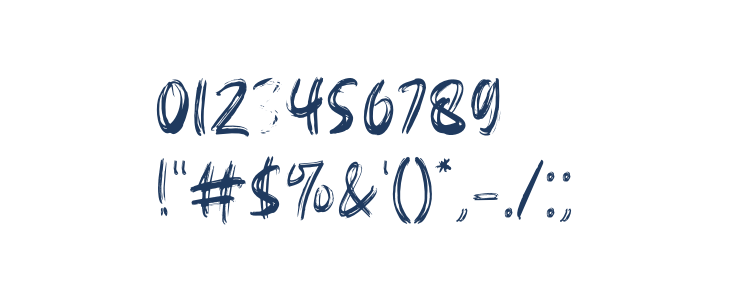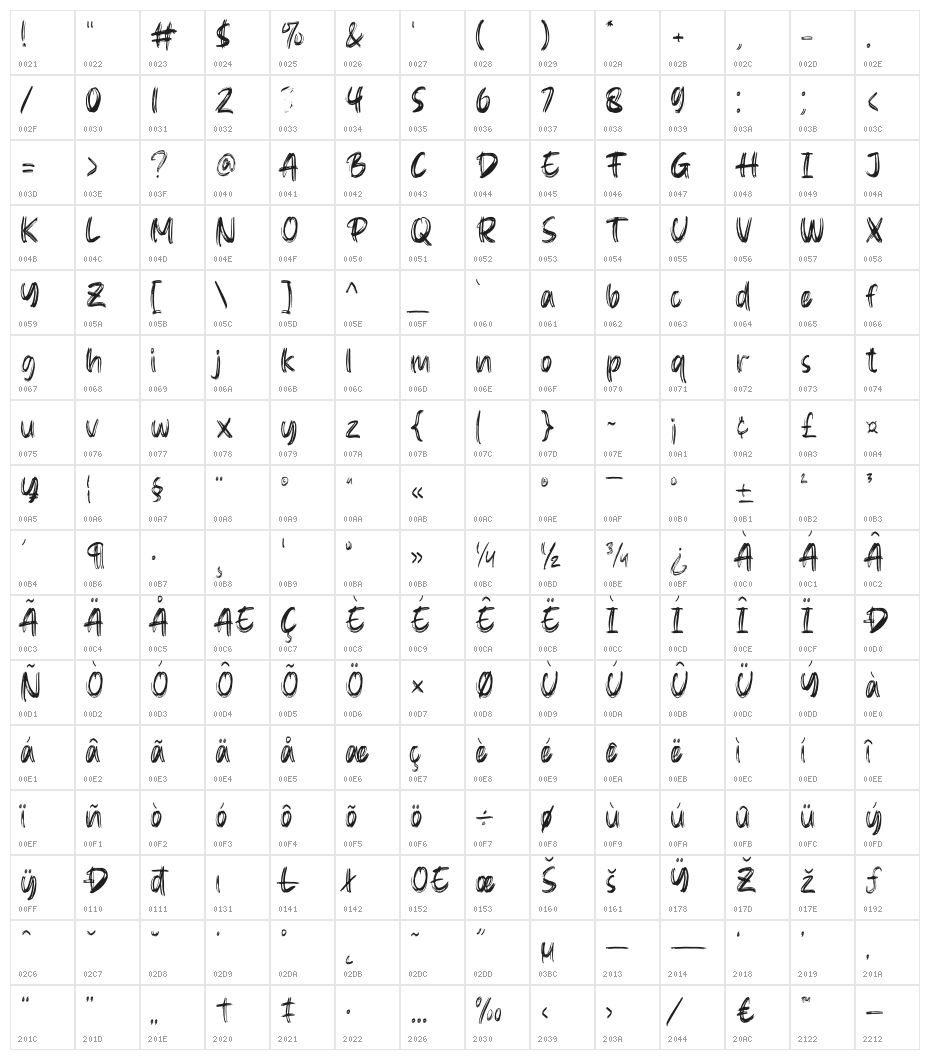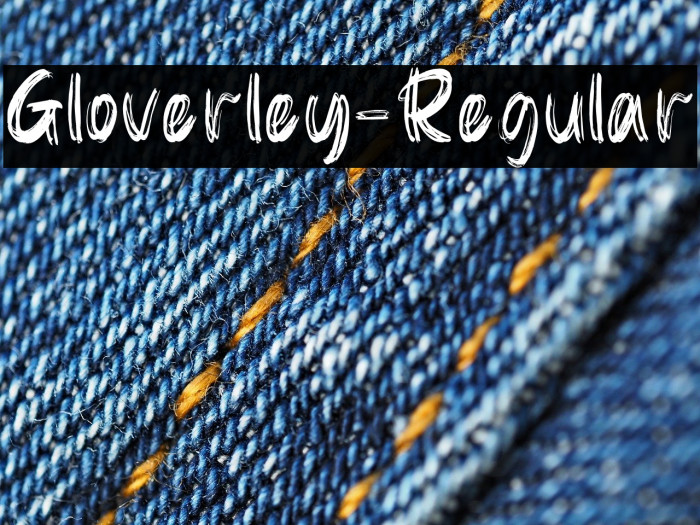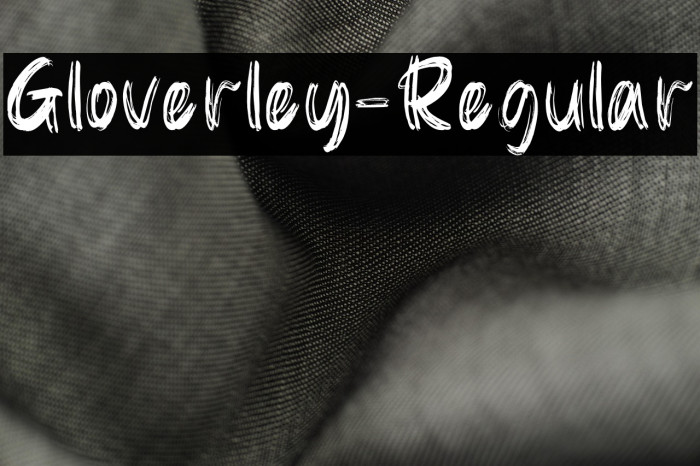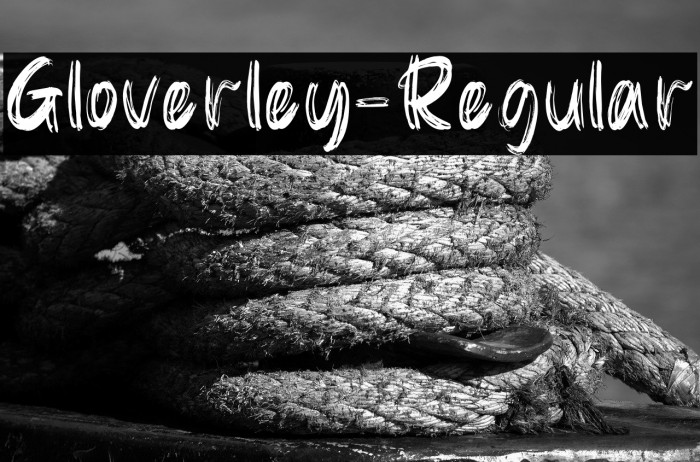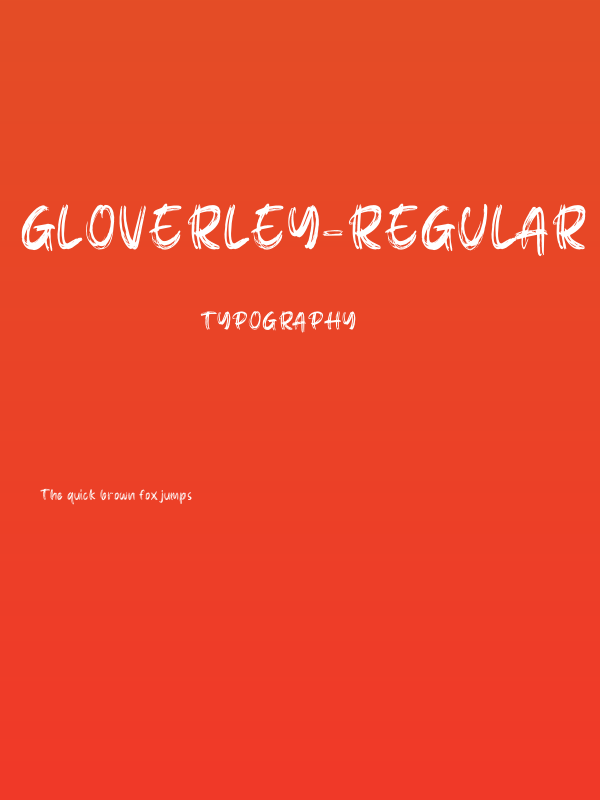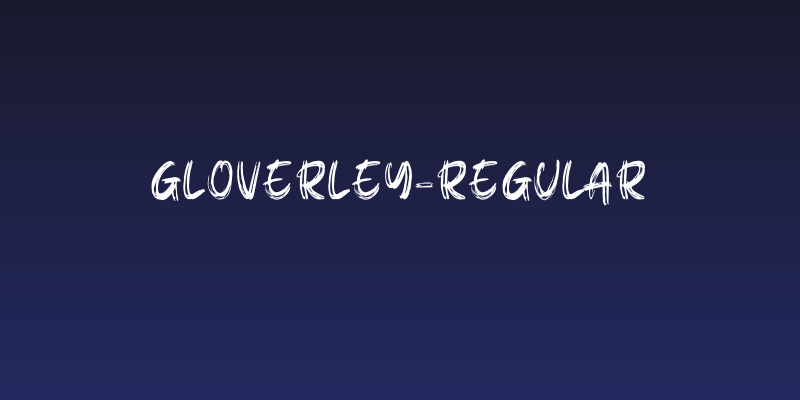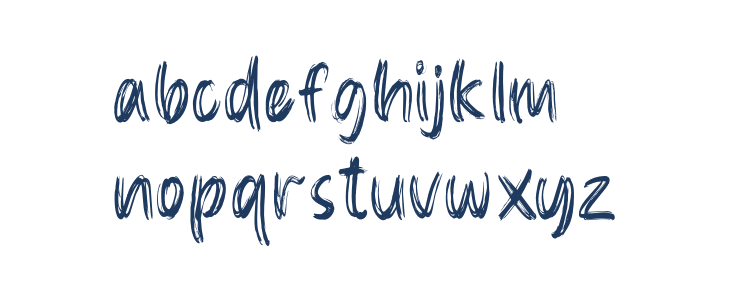
Gloverley-Regular Font
Gloverley-Regular Description
This font exhibits a bold, expressive style with a hand-painted appearance. The strokes are uneven and textured, giving it a dynamic and artistic feel. The uppercase and lowercase letters maintain a consistent brush-like quality, with each character appearing as if it was crafted with a swift, confident stroke. The numbers and special characters follow the same aesthetic, ensuring a cohesive look across all glyphs. This font's unique style makes it stand out, offering a sense of creativity and individuality.
| Proposed Projects | Ideal for creative projects such as posters, album covers, branding for artistic ventures, and any design requiring a bold, expressive touch. |